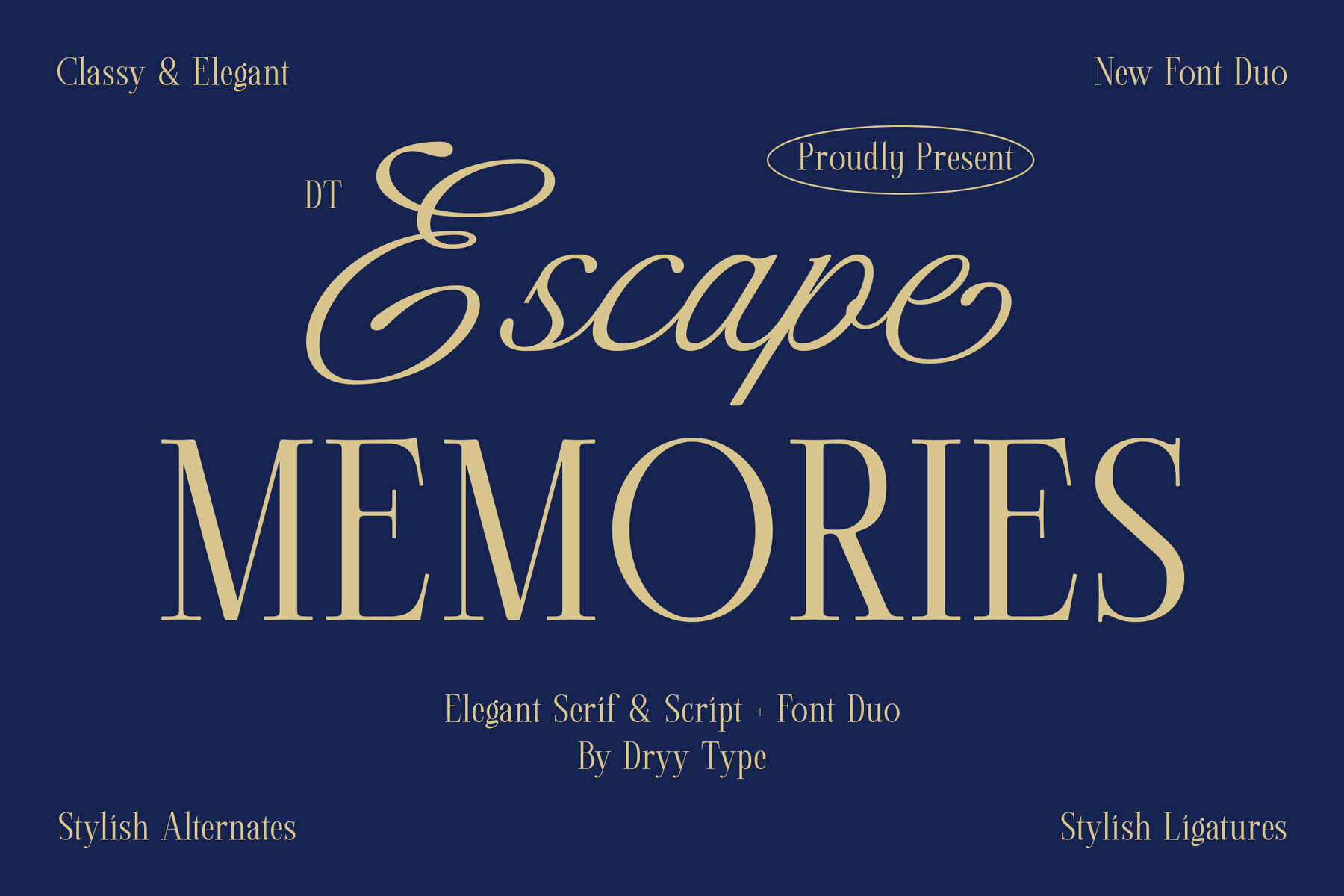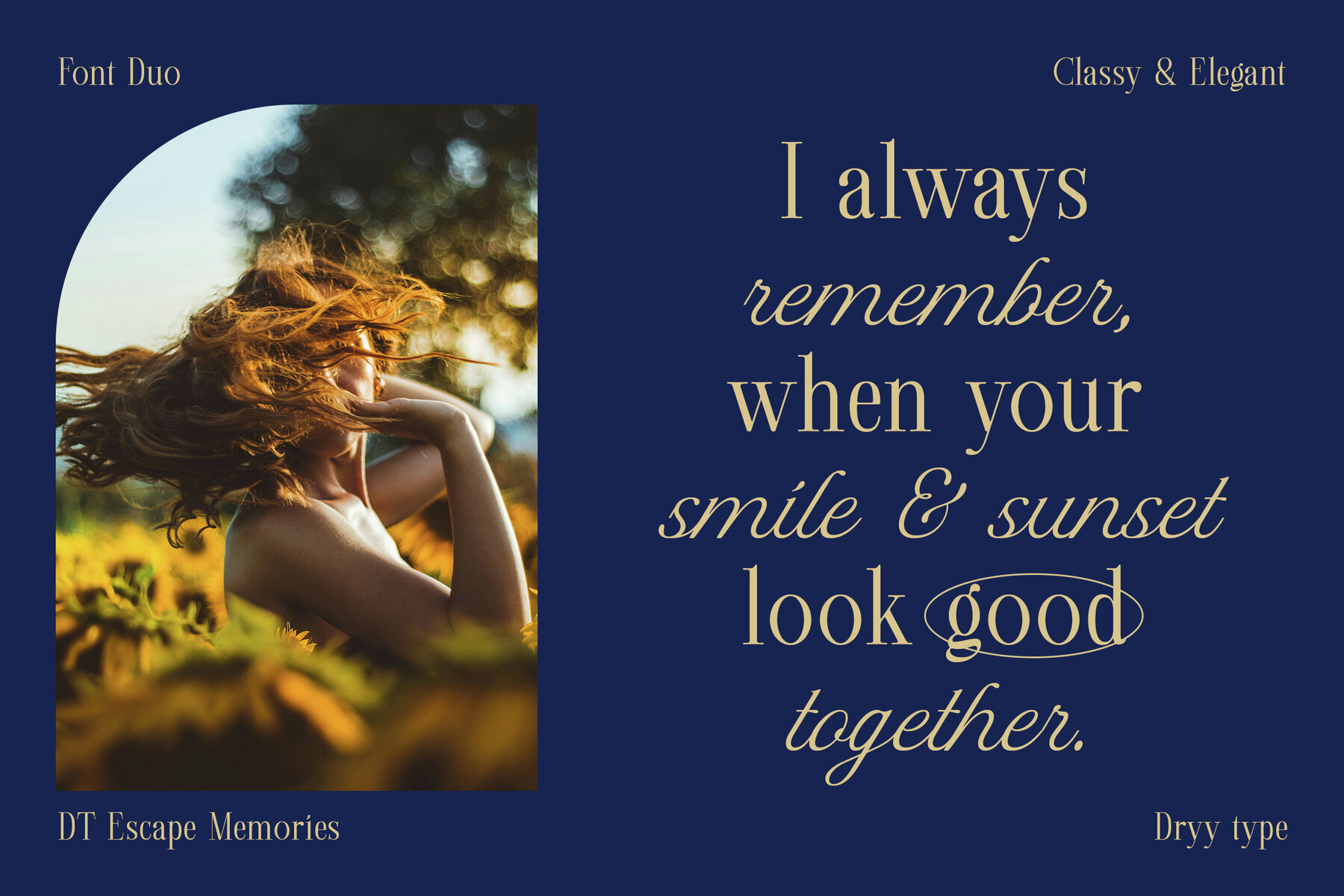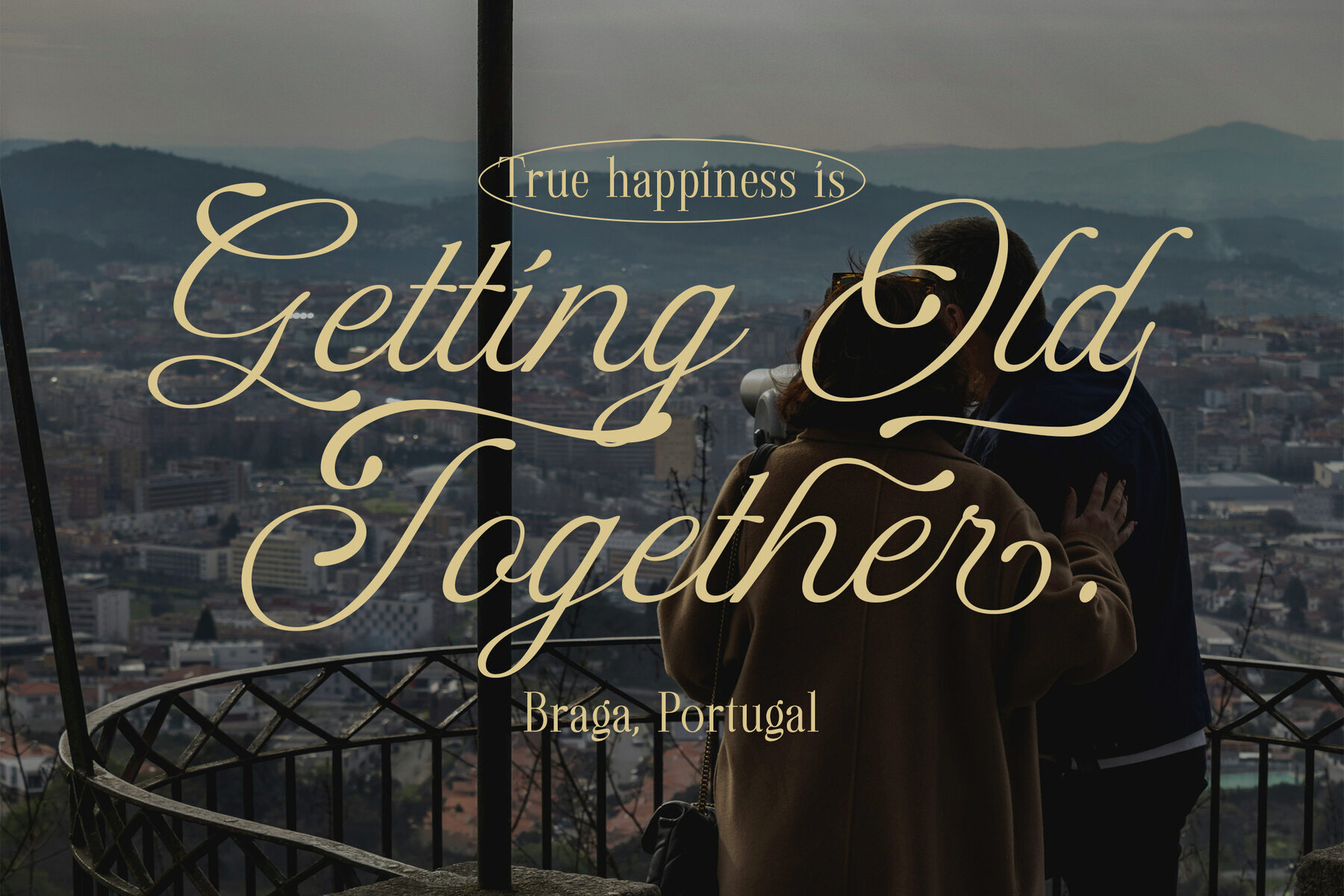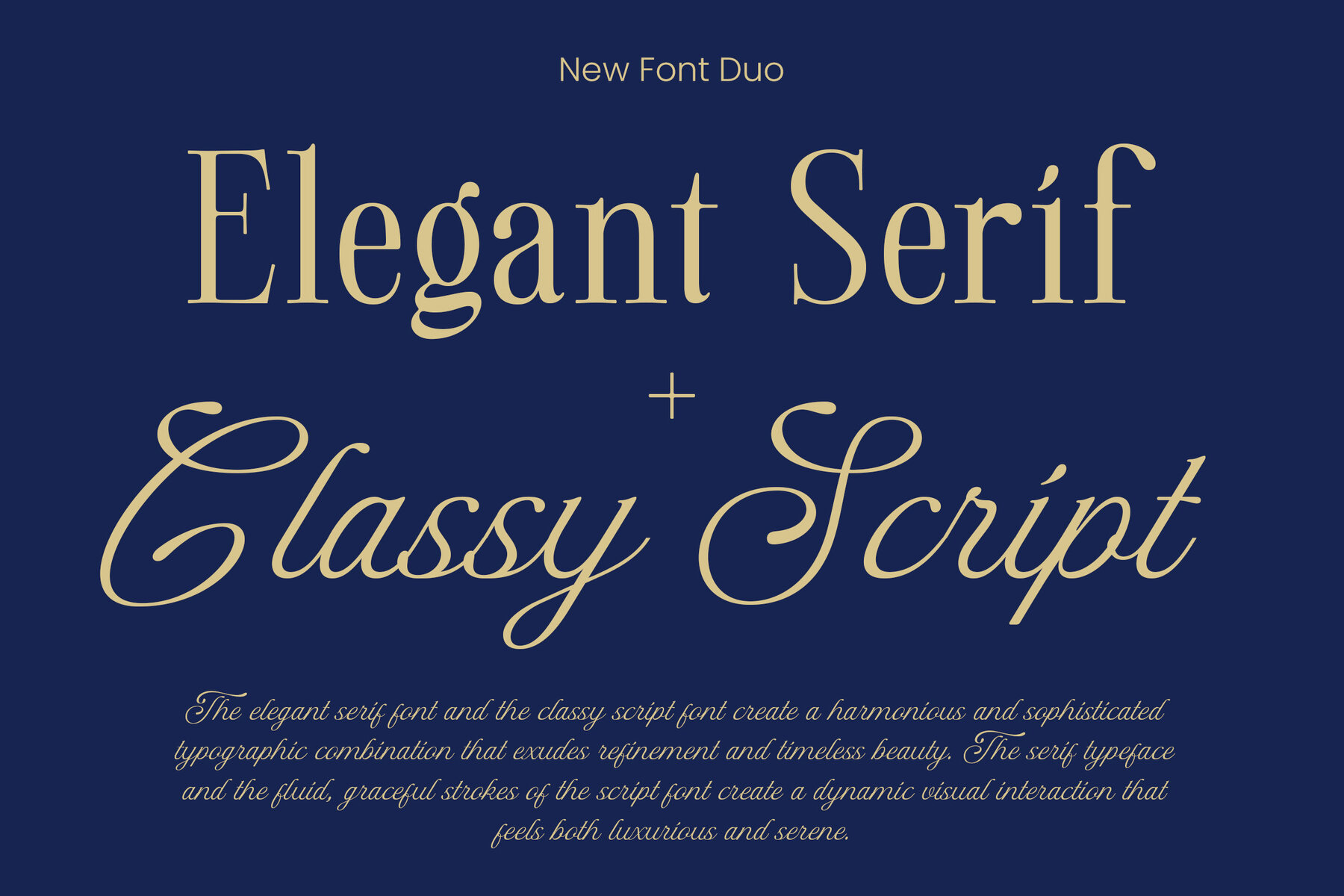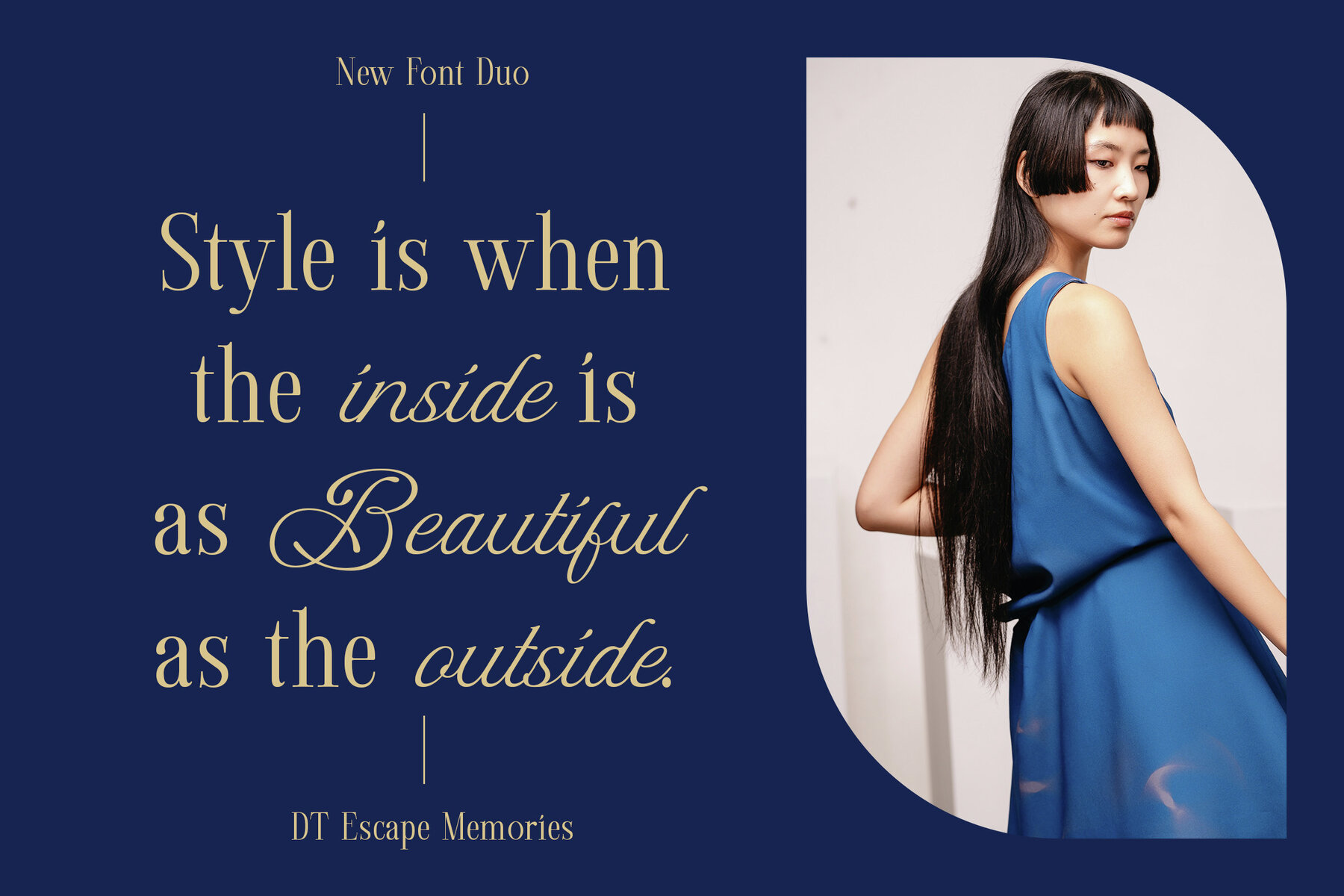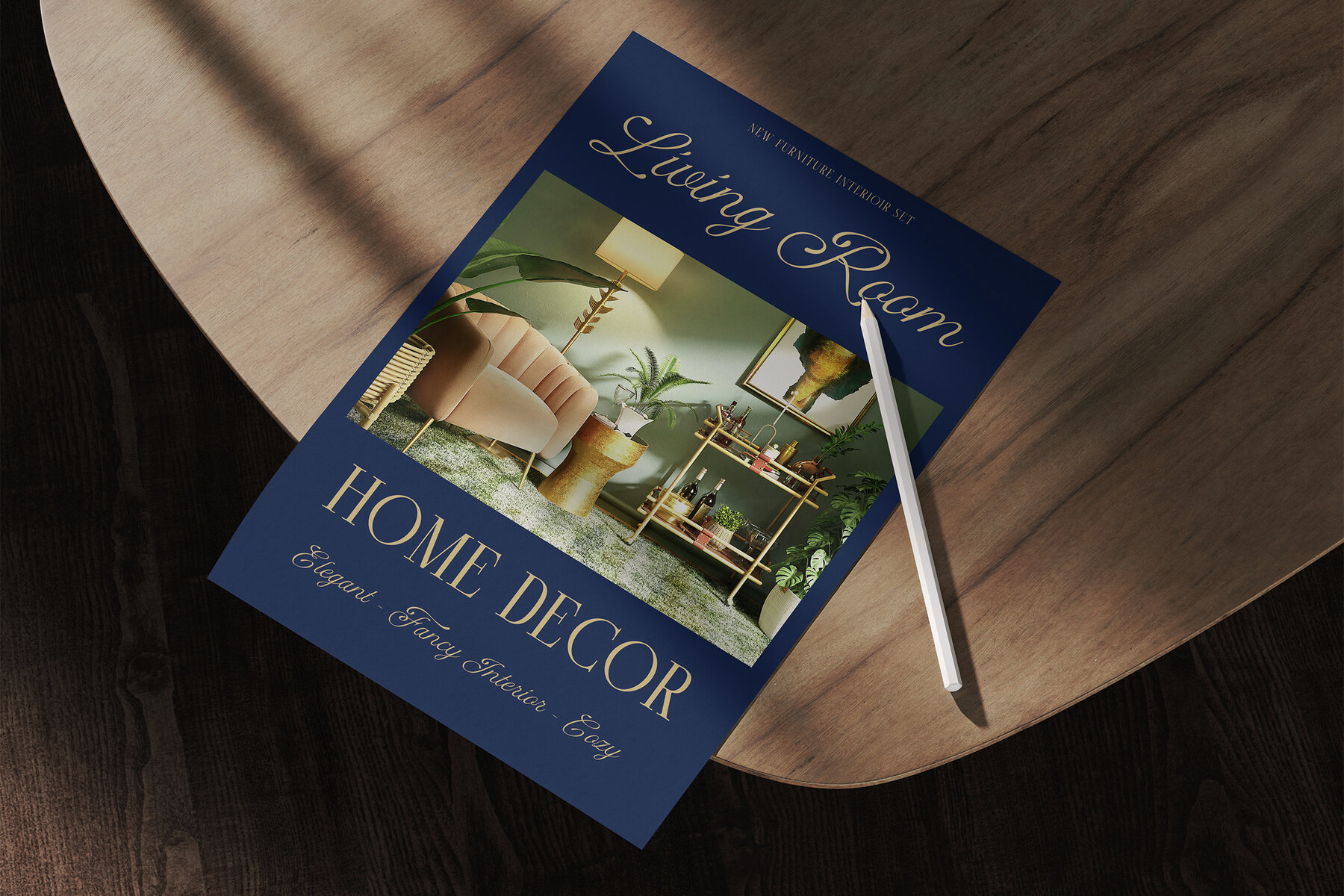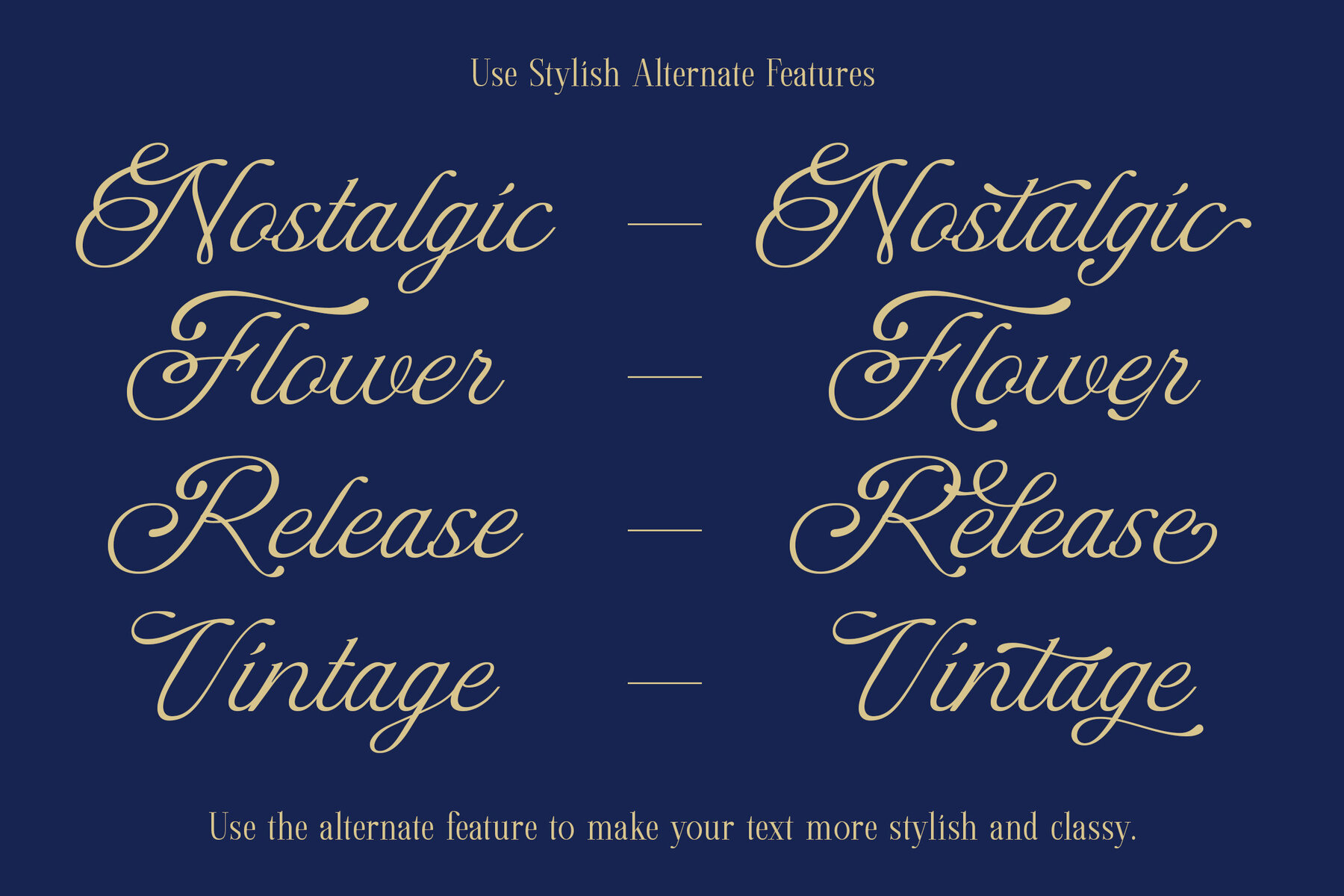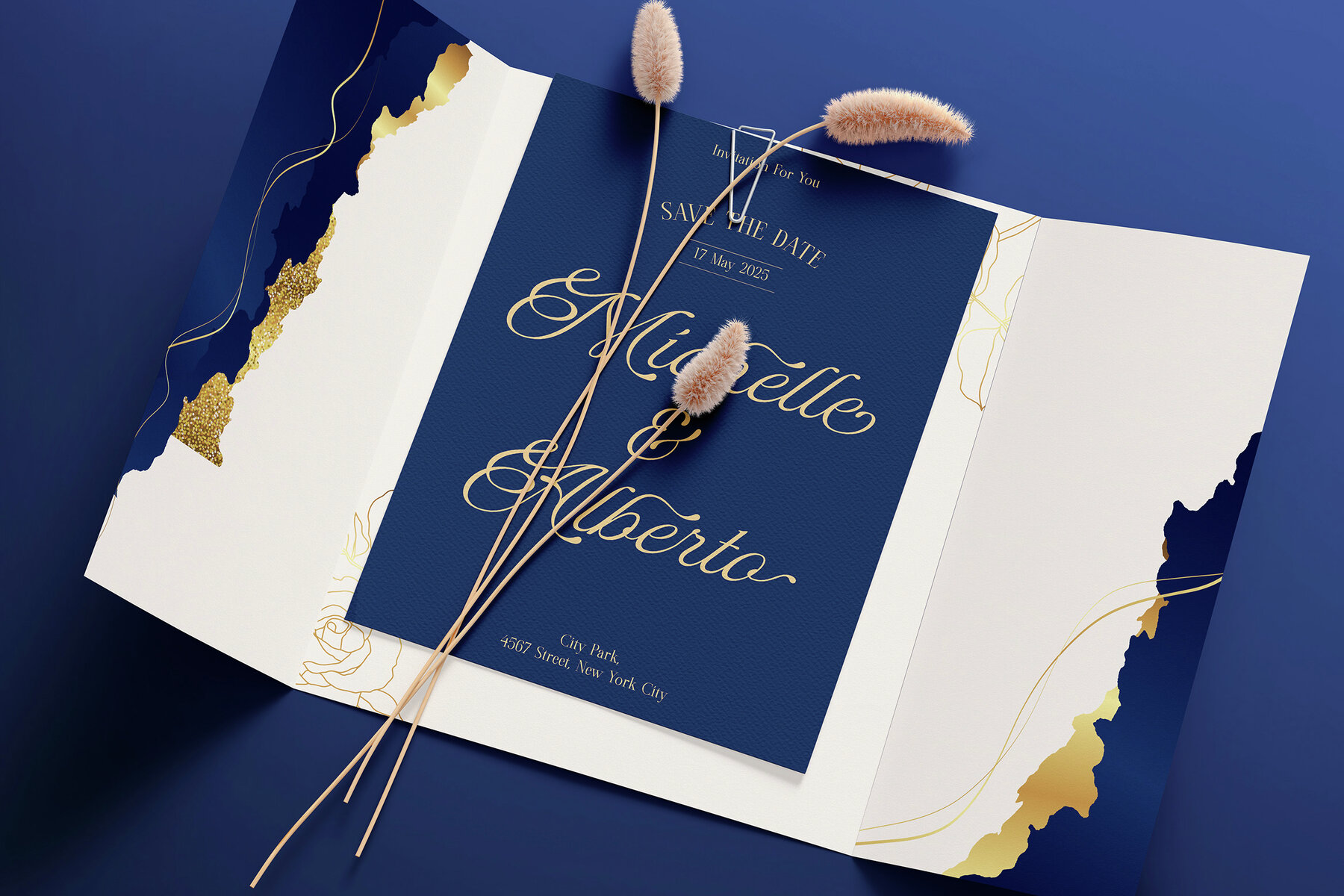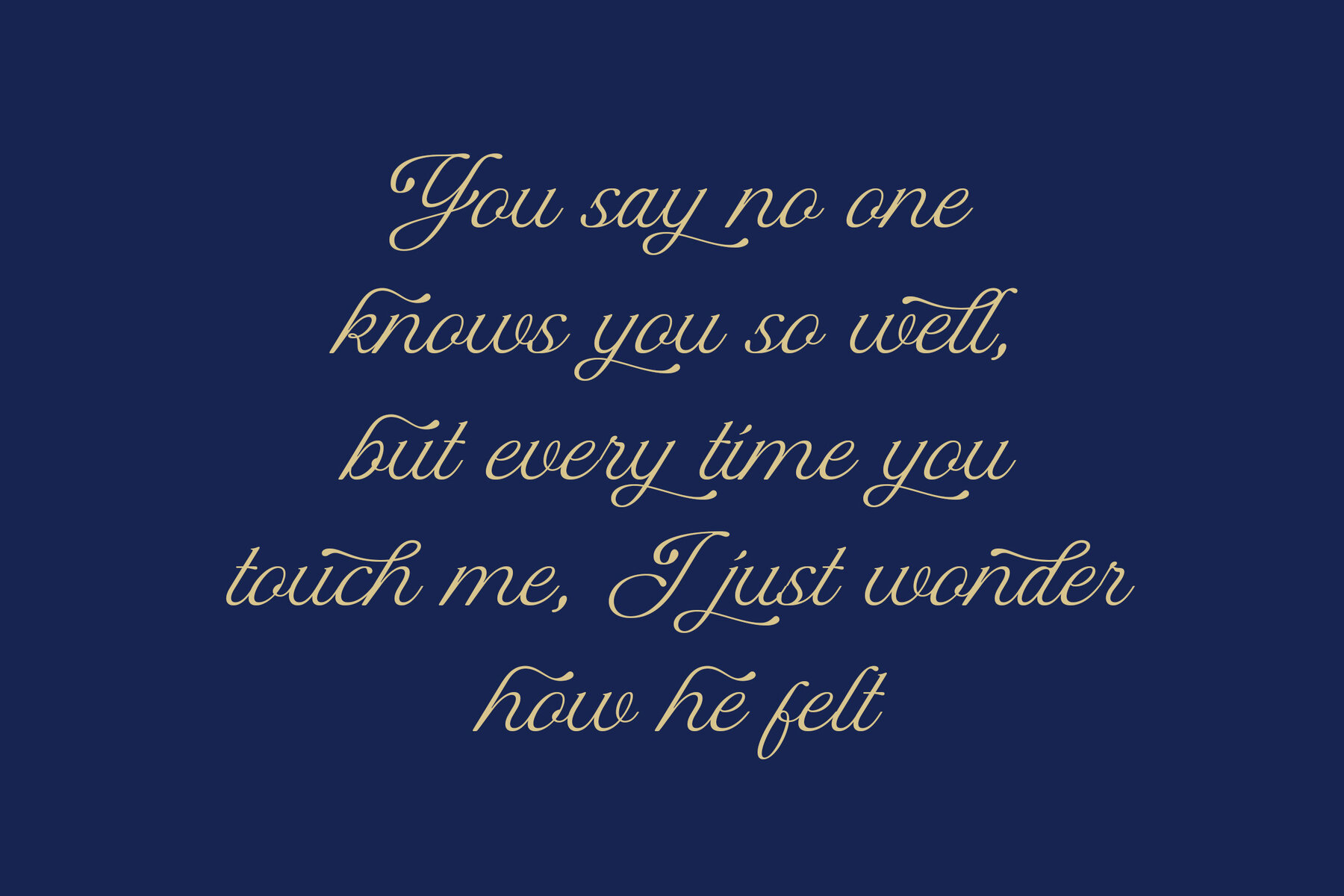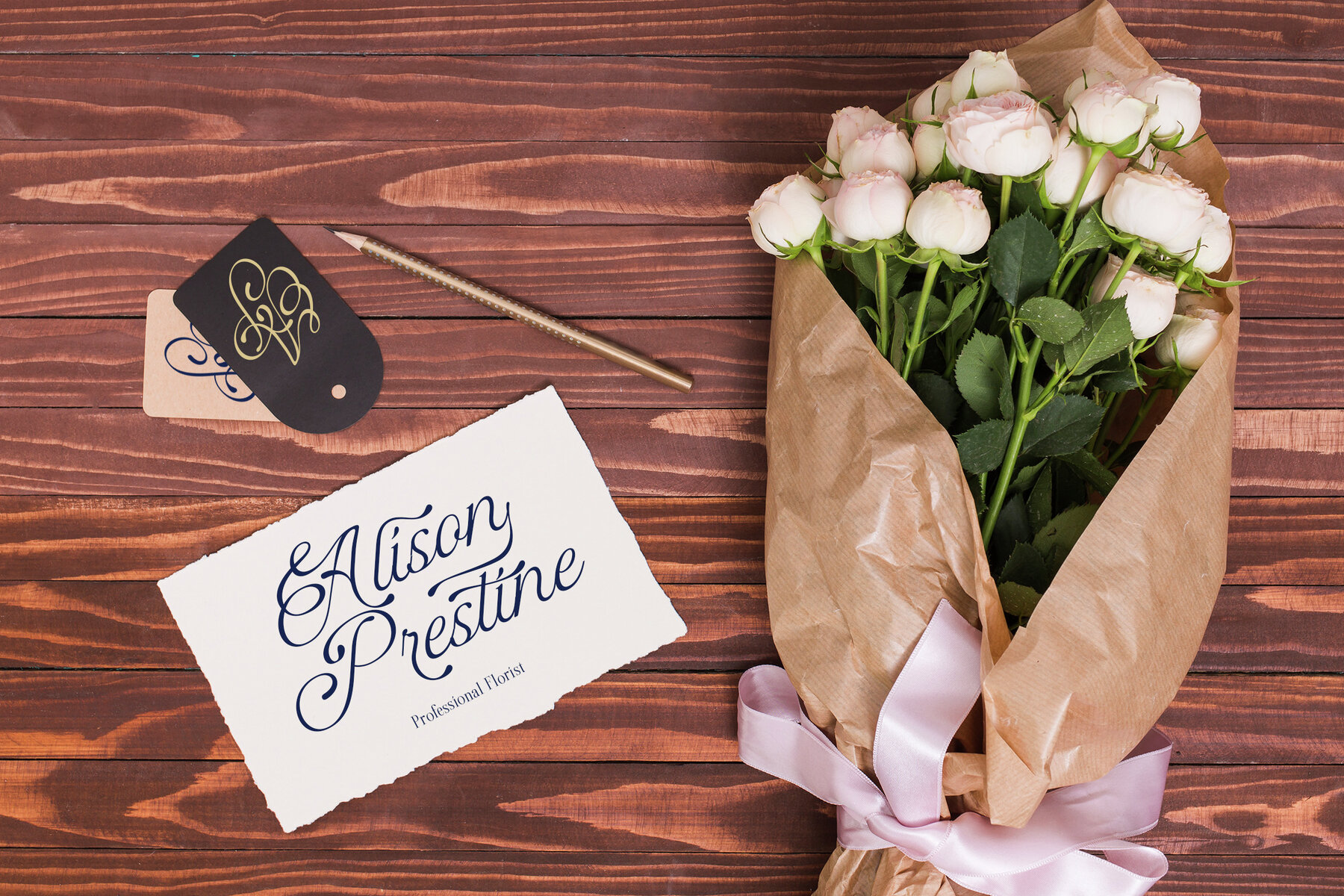
DT Escape Memories Font
DT Escape Memories captures elegance with its seamless blend of Serif and Script styles. Drawing inspiration from nostalgic moments, this font offers a touch of sophistication to every design, whether digital or print. Embedded in its characters is a sense of grace that aims to resonate beyond the canvas. This well-rounded font design is ideal for elevating various projects, inviting designers to explore its full potential.DT Escape Memories: Elegance and Versatility in Serif and Script